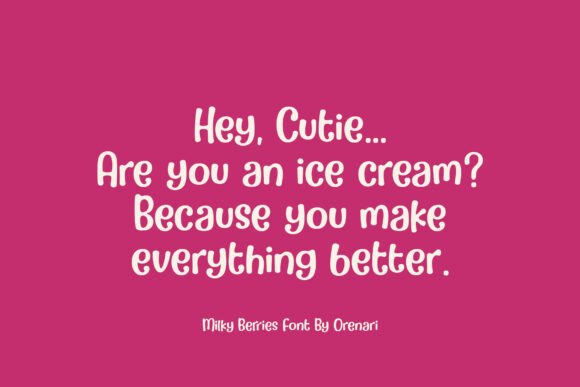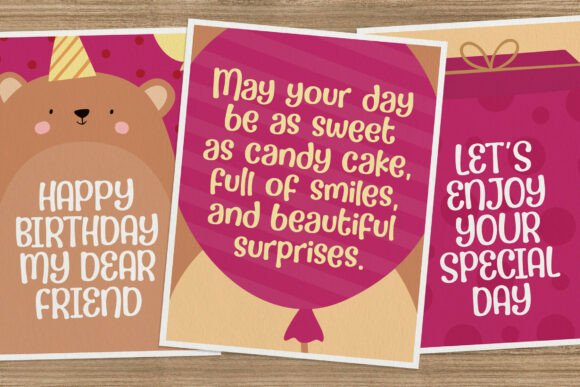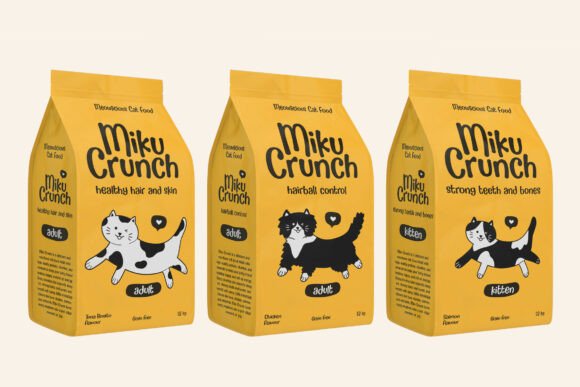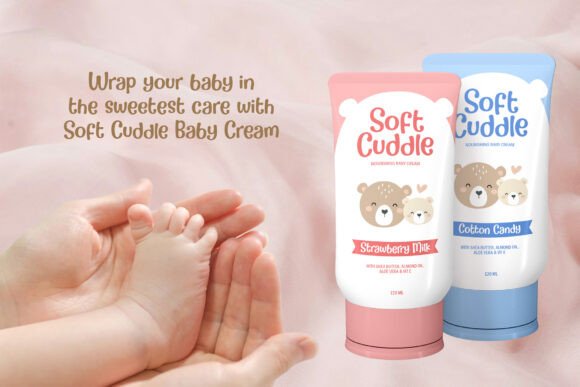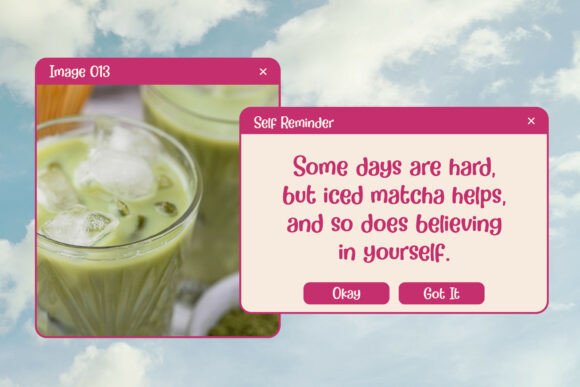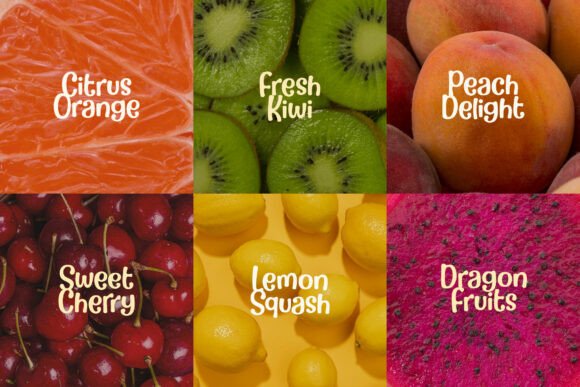
Introduction to Milky Berries Font
Remember the moment when you stumbled upon that perfect font, and your design project suddenly felt complete? For many designers, it’s that one element that makes all the difference between a good project and a great one. That’s exactly what the Milky Berries Font offers – a dash of whimsy and charm that can elevate any creative project.
Whether you’re working on a free download for a client or a high-quality design for a commercial project, the Milky Berries Font is the perfect design resource to bring a playful touch. With its transparent background, this font is incredibly versatile and can be used in a variety of contexts, from social media posts to greeting cards. Its bouncy, rounded letters are sure to add a sprinkle of sweetness to any design, making it a valuable addition to any designer’s toolkit.
Key Features of Milky Berries Font
- Unique and playful design, perfect for creative projects and design resources
- Features a transparent background, making it easy to overlay on images and designs
- Perfect for use in digital design, including social media graphics, logos, and branding materials
Honest Review: Milky Berries Font
I recently stumbled upon the Milky Berries Font and I must say it’s a great addition to any designer’s toolkit. The font itself is a beautiful, high-quality design resource perfect for creative projects that require a playful touch.
Here are some aspects that work well: ✨ The font comes with a transparent background, making it easy to layer over other designs. The characters are well-formed and consistently styled throughout, ensuring a professional look. The font is also available for free download, which is a huge plus for designers on a budget.
- Well-formed and consistently styled characters
However, there are some limitations to consider: ⚠️ The font may not be suitable for formal or serious projects, as its playful nature might detract from the overall tone. Additionally, the font may require some tweaking to work well in certain font sizes or styles.
Overall, I’m impressed with the Milky Berries Font and would recommend it to designers looking for a fun and creative design resource. While it may have some limitations, its benefits far outweigh the drawbacks.
How to Use Milky Berries Font
The Milky Berries Font is ideal for creative projects, such as:
- Food and beverage branding
- Children’s party invitations and decorations
- Wedding and event graphics
Tips for Getting the Most Out of Milky Berries Font
For the best results, use the Milky Berries Font in combination with other design elements, such as colorful graphics and textures. Experiment with different font sizes and styles to create visually appealing designs.
Alternatives to Milky Berries Font
When to use: Great Vibes is ideal for projects that require a touch of elegance and sophistication, such as wedding invitations, event branding, and editorial design.
Alex Brush is a beautiful, high-quality script font that’s perfect for designers looking for a unique and elegant design. With its transparent background and elegant design, it’s ideal for use in creative projects such as branding, advertising, and editorial design. Alex Brush has a more refined and polished look compared to Milky Berries Font, making it suitable for projects that demand a level of sophistication.
Does the Milky Berries Font have a transparent background?
Yes, the Milky Berries Font has a transparent background, making it easy to use on any background or design element. This feature also allows for seamless integration with other design elements and backgrounds.